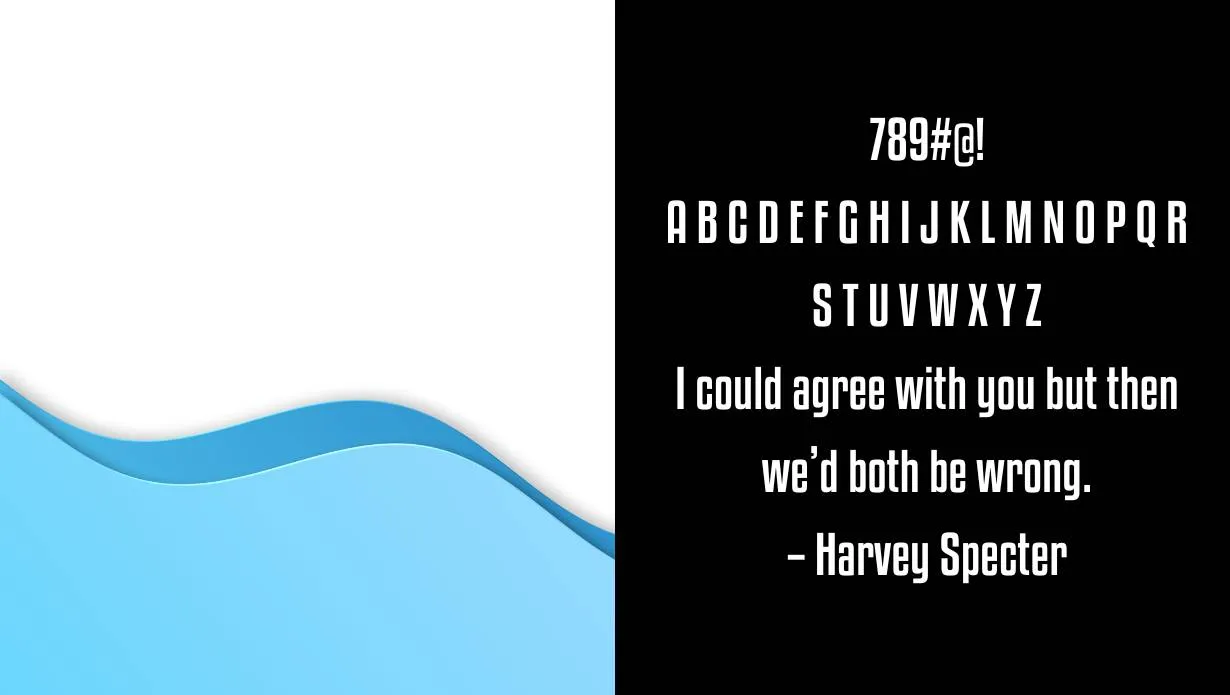
Shark Tank Font is a display-type design that was first introduced in 2009. It has a very unique style that makes it stand out from other unique typefaces.
This Font was designed with both display and text use in mind. The font’s letterforms are open and have a high x-height, which makes them legible in small sizes.
This unique style is inspired by the lettering of the old display typefaces that are commonly used in advertisements. The font includes various alternative characters and ligatures that give it a rough, streetwise look.